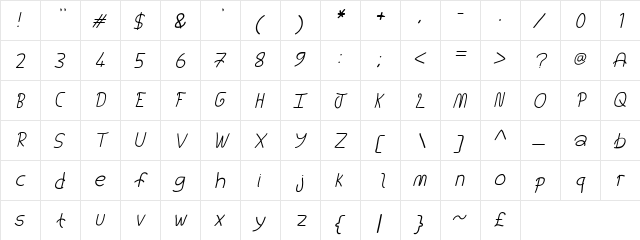
You're Still The One Italic
Design Context for You're Still The One Typeface
You're Still The One offers clean, dependable letterforms without strong stylistic allegiance, making it a practical choice for designers who need flexibility. The dynamic lean of this cut emphasises speed and emphasis in any layout.
Pro Tip: Use You're Still The One for emphasis, pull quotes, and subheadings where its slanted energy can add rhythm to the layout.